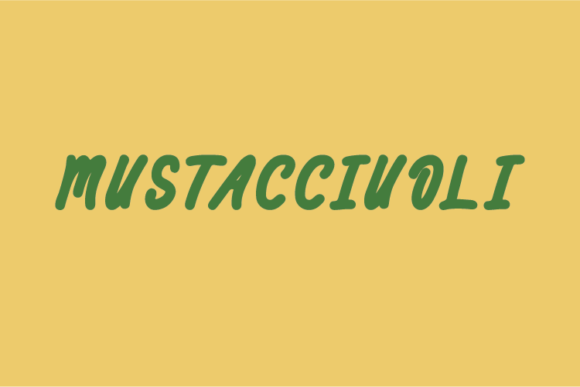
Venture into the realm of captivating calligraphy with Mustacciuoli, a script font that dances across the digital canvas with the grace and authenticity of a natural hand. Each character, crafted with meticulous care and precision, carries the essence of Hanna Bie's artistic vision, resulting in a font that is not just a collection of letters, but an expression of creativity and passion.
Mustacciuoli's allure lies in its unwavering commitment to authenticity. Unlike other fonts that undergo extensive manipulation and alteration, Mustacciuoli remains untouched, preserving the inherent beauty of its hand-drawn origins. This unique approach grants it a genuine charm, a touch of human artistry that resonates with users seeking a font that speaks from the heart.
Immerse yourself in the limitless possibilities that Mustacciuoli presents. Its flowing lines and elegant curves lend themselves effortlessly to a multitude of design applications. Whether you're crafting heartfelt quotes, adorning personalized notes with a touch of flair, or creating eye-catching tees and product designs, Mustacciuoli becomes an extension of your creative expression.
As a font, Mustacciuoli transcends the realm of mere typography, becoming a testament to the power of individuality. Its distinctive character adds a layer of depth and intrigue to your designs, captivating your audience and leaving a lasting impression. From the moment they lay eyes upon your creations, they'll be drawn into the allure of Mustacciuoli, a font that speaks volumes without uttering a single word.
So, embrace the artistry of Mustacciuoli, a font that embodies the essence of creativity and authenticity. Let it be your muse, your guiding light, as you embark on a journey of design exploration. With Mustacciuoli at your fingertips, the possibilities are endless, and the boundaries of your imagination are the only limits.